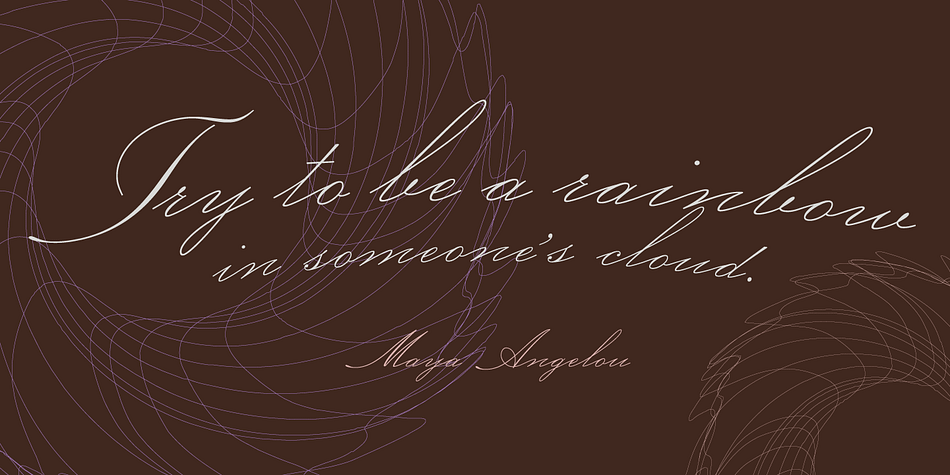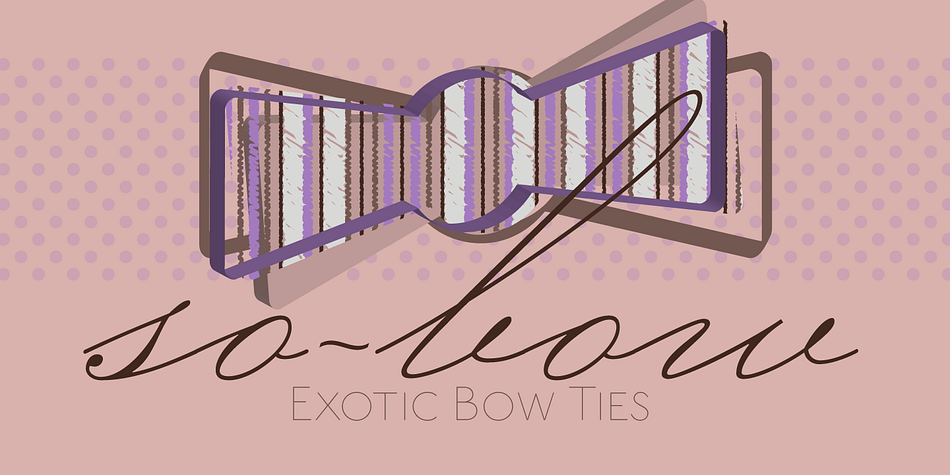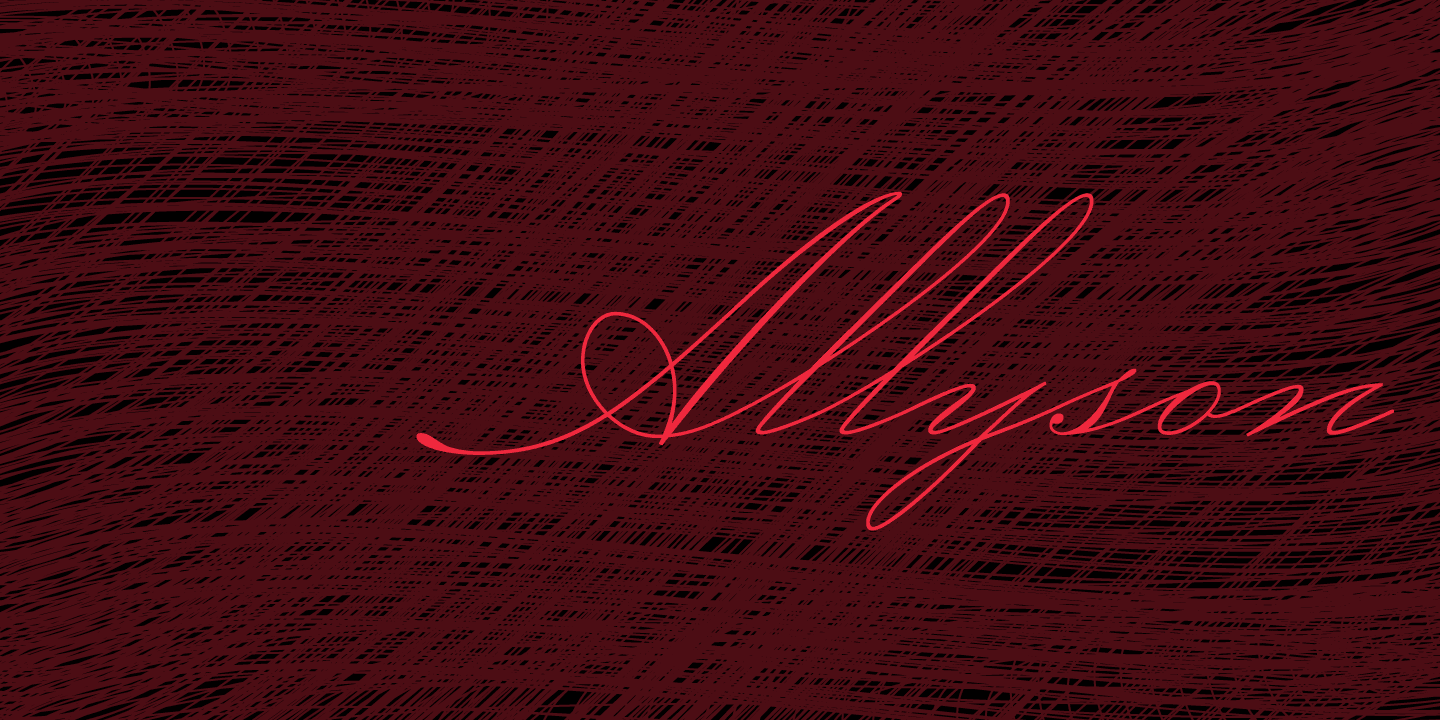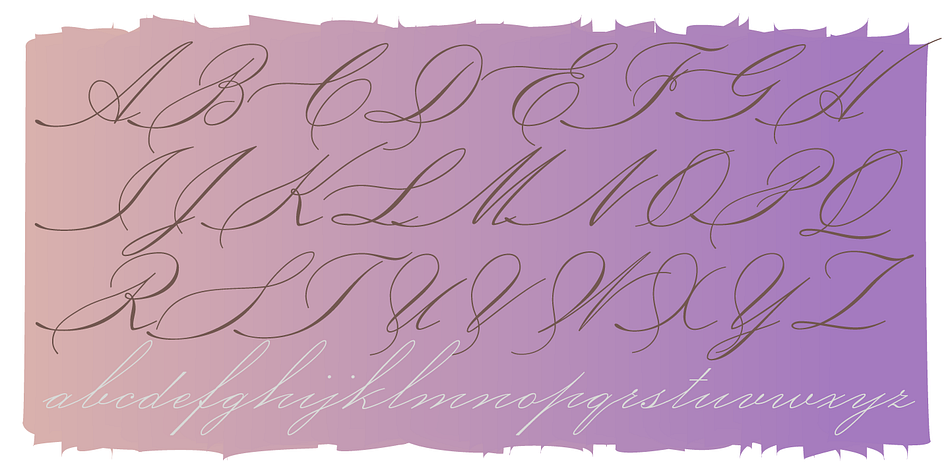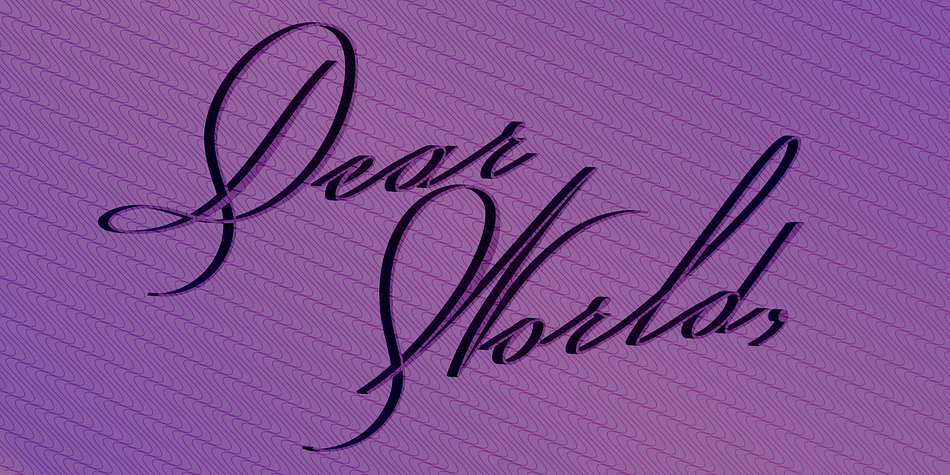
P22 Allyson Pro is a script font family. This typeface has two styles and was published by International House of Fonts.
P22 Allyson is based on an old metal font by Barnhart Bros. & Spindler named “Hazel Script.” It has been expanded and redrawn to meet the needs of today’s designers by including a full character set. Perfect for elegant invitations and certificates.